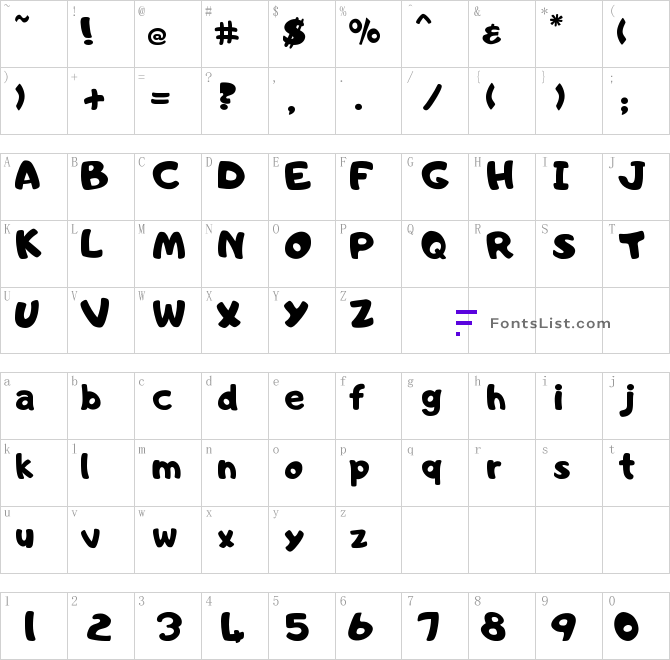
- Font Name:Adigiana UI
Adigiana-UI-Regular.ttf is a very beautiful artistic font, Adigiana-UI-Regular.ttf is widely used in the design and printing of various books and pictures,Adigiana-UI-Regular.ttf has a strong visual impact,Adigiana-UI-Regular.ttf is a commonly used font in newspapers, magazines and books, and is used in posters, e-commerce Poster design, store design, logo design, font design and other fields.Adigiana-UI-Regular.